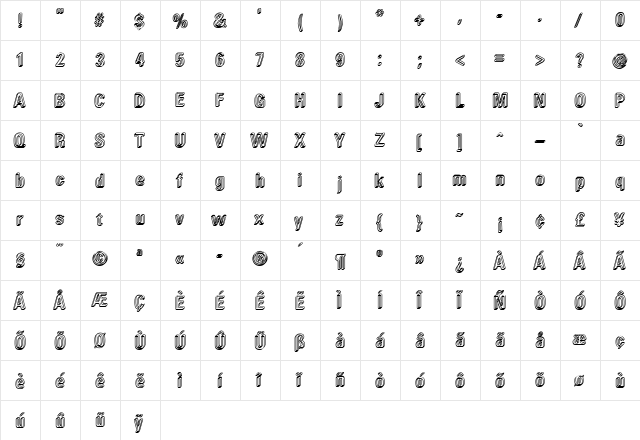
LowTech Fat Font Preview
LowTech Fat
LowTech Fat Font Details
| Style | Fat |
Design Context for LowTech Typeface
LowTech has a distinctly futuristic character, with geometric precision and clean angles that feel at home in technology, gaming, and sci-fi contexts.